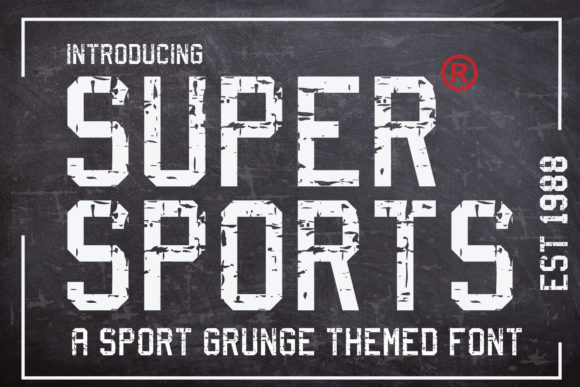
**Introducing Supersports: The Dynamic Font for Extraordinary Expressions**
Welcome to the realm of digital artistry, where Supersports, the captivating display font, emerges as your ultimate creative companion. Its enigmatic aura, tinged with a touch of playfulness, invites you on an extraordinary typographic adventure.
Supersports transcends the boundaries of ordinary fonts, offering an unparalleled versatility that caters to an array of creative pursuits. Whether you're a web design wizard, a print virtuoso, or a master of moving images, this font will elevate your creations to new heights.
Its energetic spirit breathes life into every letterform, exuding a vibrant personality that commands attention. Imagine your words dancing across the screen or adorning the pages of your masterpiece, leaving an unforgettable impression on your audience.
Supersports is more than just a font – it's a gateway to limitless expression. Its playful nature empowers you to inject a touch of whimsy into your designs, while its unwavering elegance ensures a sophisticated finish.
Visualize your brand's identity soaring to new heights with Supersports as your signature font. Its distinctive style will etch your name into the minds of your customers, creating an instant connection and fostering lasting relationships.
Harness the power of Supersports to craft captivating headlines that entice readers, mesmerizing logos that turn heads, and eye-catching social media posts that ignite engagement. The possibilities are endless, bounded only by the limits of your imagination.
Join the ranks of creative visionaries who have embraced Supersports as their font of choice. Experience the thrill of transforming your digital creations into masterpieces that resonate with your audience and leave an enduring legacy.
Don't settle for ordinary – embrace the extraordinary with Supersports, the dynamic font that empowers you to unleash your limitless creativity.